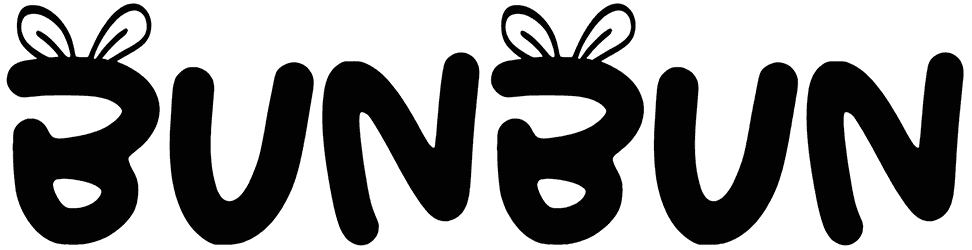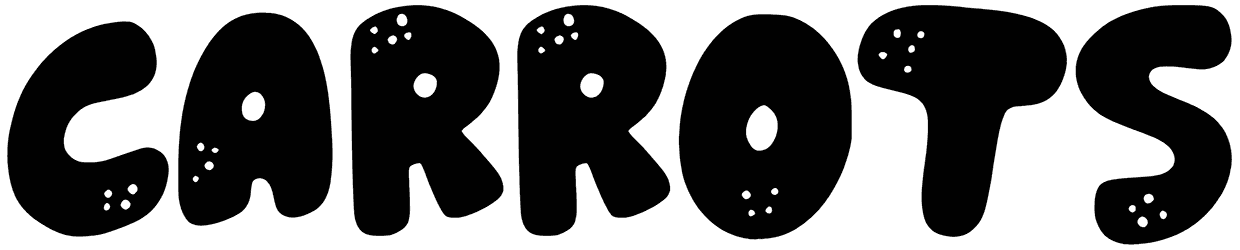
Draw all attention to your text layout with this Easter font at first sight! Easter Park is decorated with carrots and eggs that will add a charming and joyous vibe to your project. This font can be amazing for cards, posters, programs, and so forth. If you found this freebie helpful, make sure to recommend us to your friends!